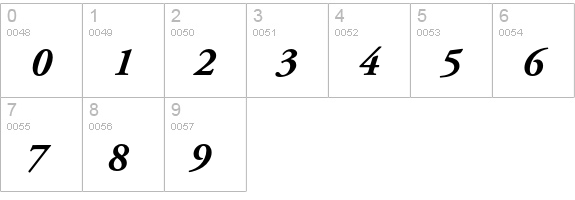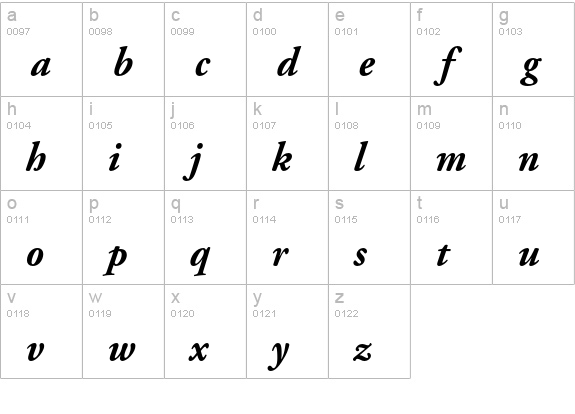
Adobe Garamond Bold Italic Font Details
Adobe Garamond Bold Italic is a strong, high-contrast, italic variant in the Adobe typeface family \xE2\x80\x94 well suited to headlines, attention-grabbing titles, and strong calls-to-action.
Adobe Garamond Bold Italic is a classic and sophisticated typeface that exudes elegance and professionalism. With its bold weight and slanted style, this font commands attention and adds a touch of flair to any project. Perfect for headings, titles, and emphasis, Adobe Garamond Bold Italic strikes the perfect balance between traditional and contemporary design elements. And the best part? You can get this exquisite font for free! That's right, Adobe Garamond Bold Italic is freely available for download at FontsMarket.com. So whether you're working on a business presentation, a creative project, or anything in between, Adobe Garamond Bold Italic is the ideal choice to elevate your design to the next level. Don't miss out on this opportunity to add a touch of sophistication to your work with this stunning typeface.